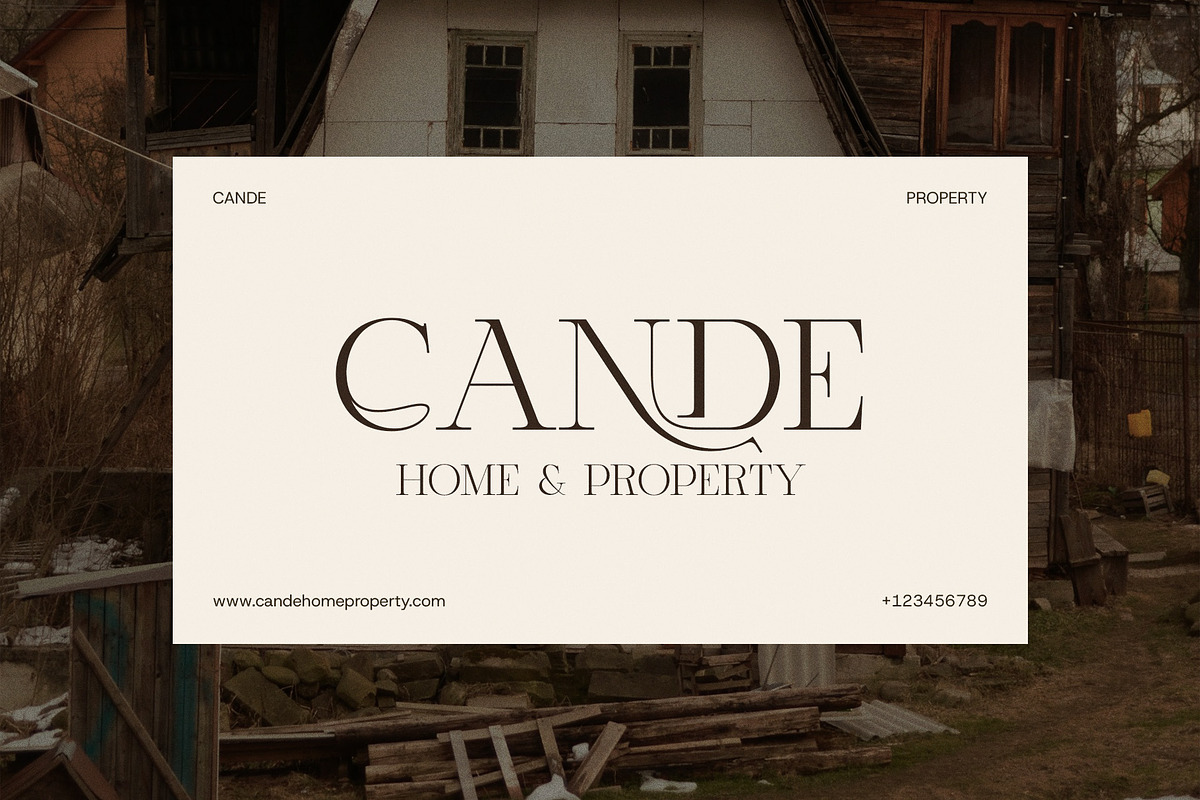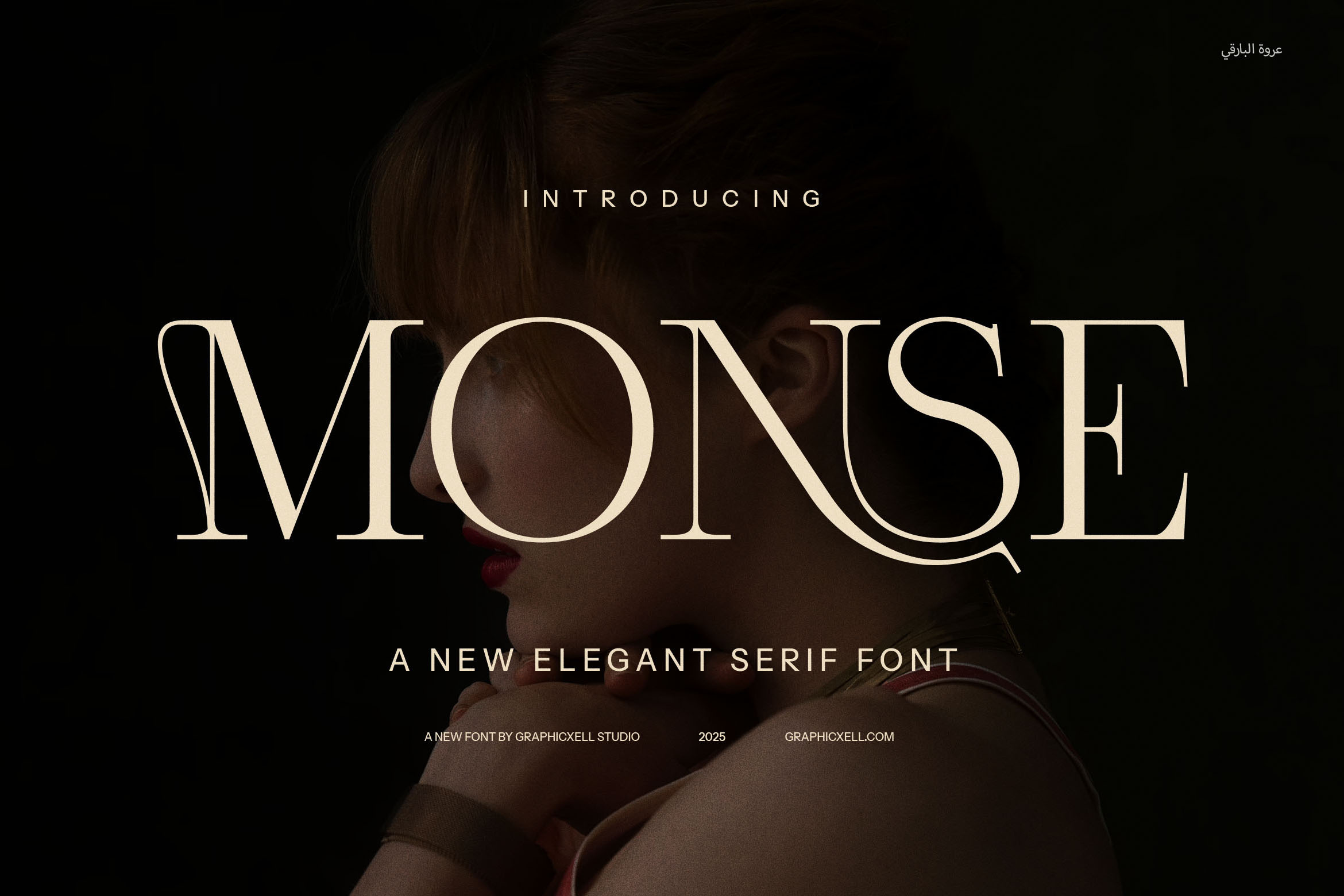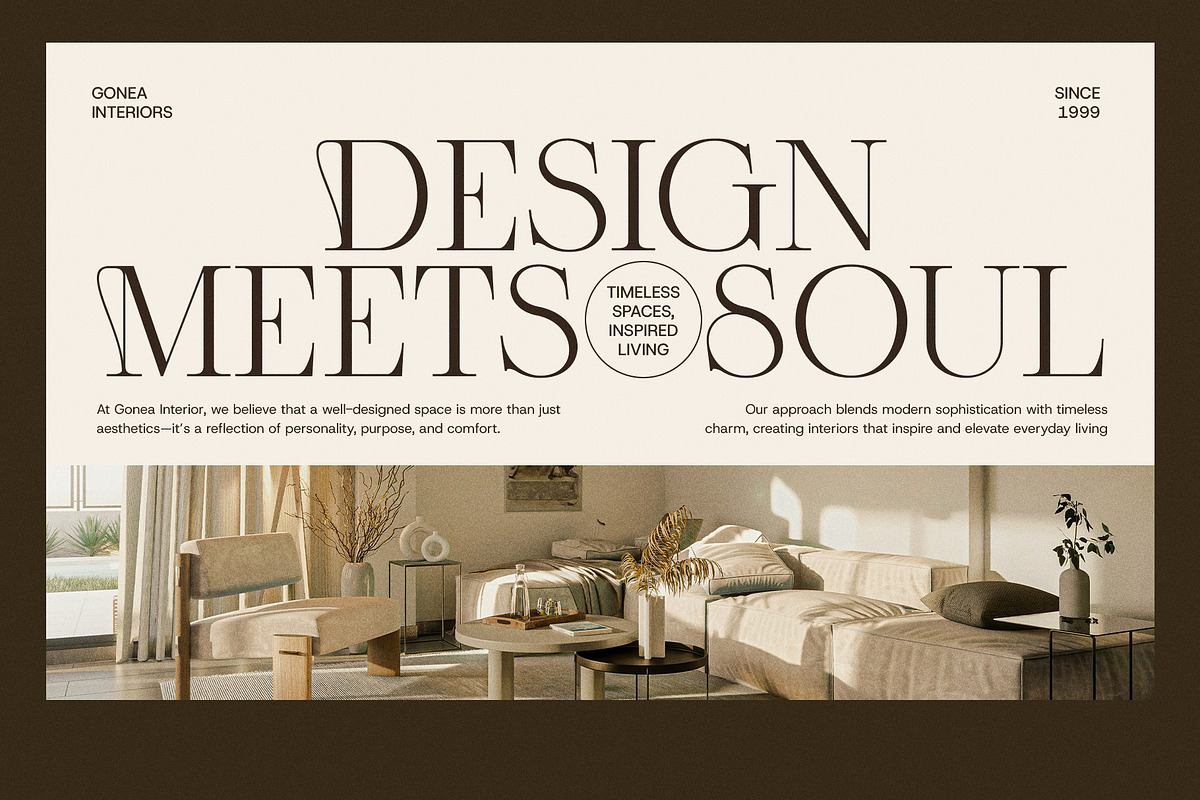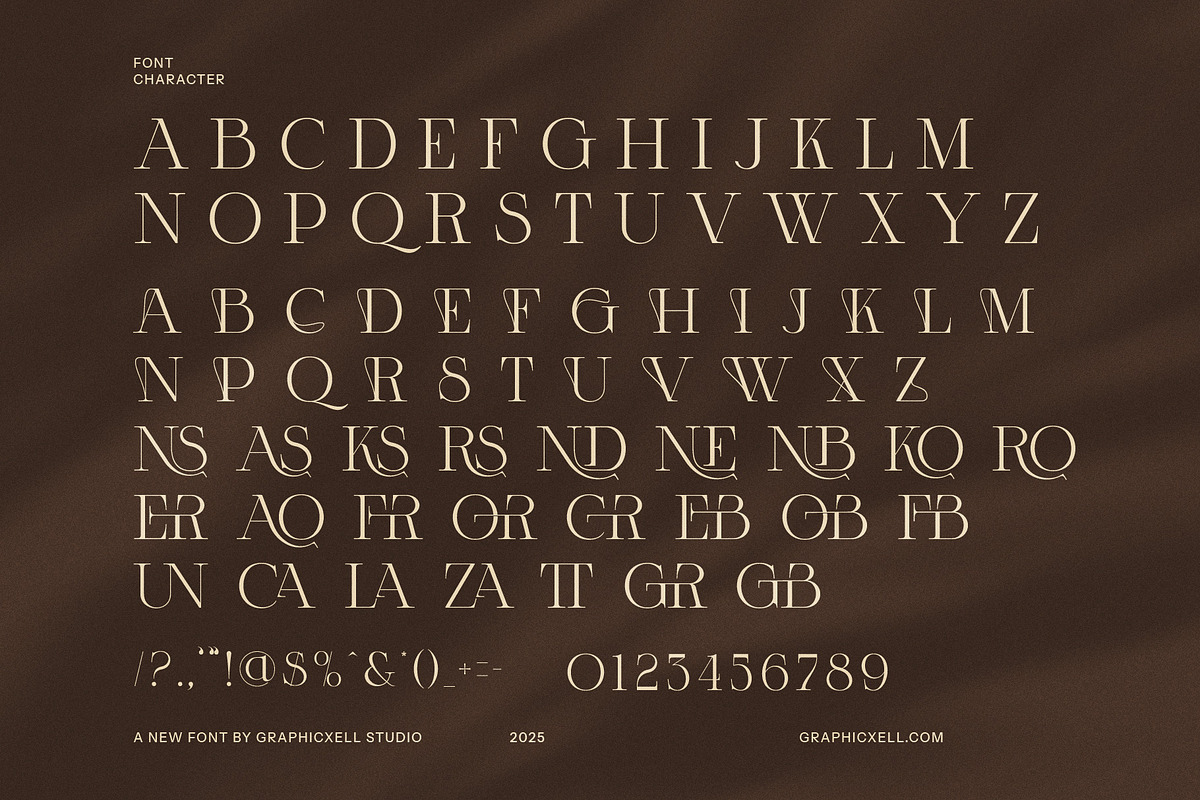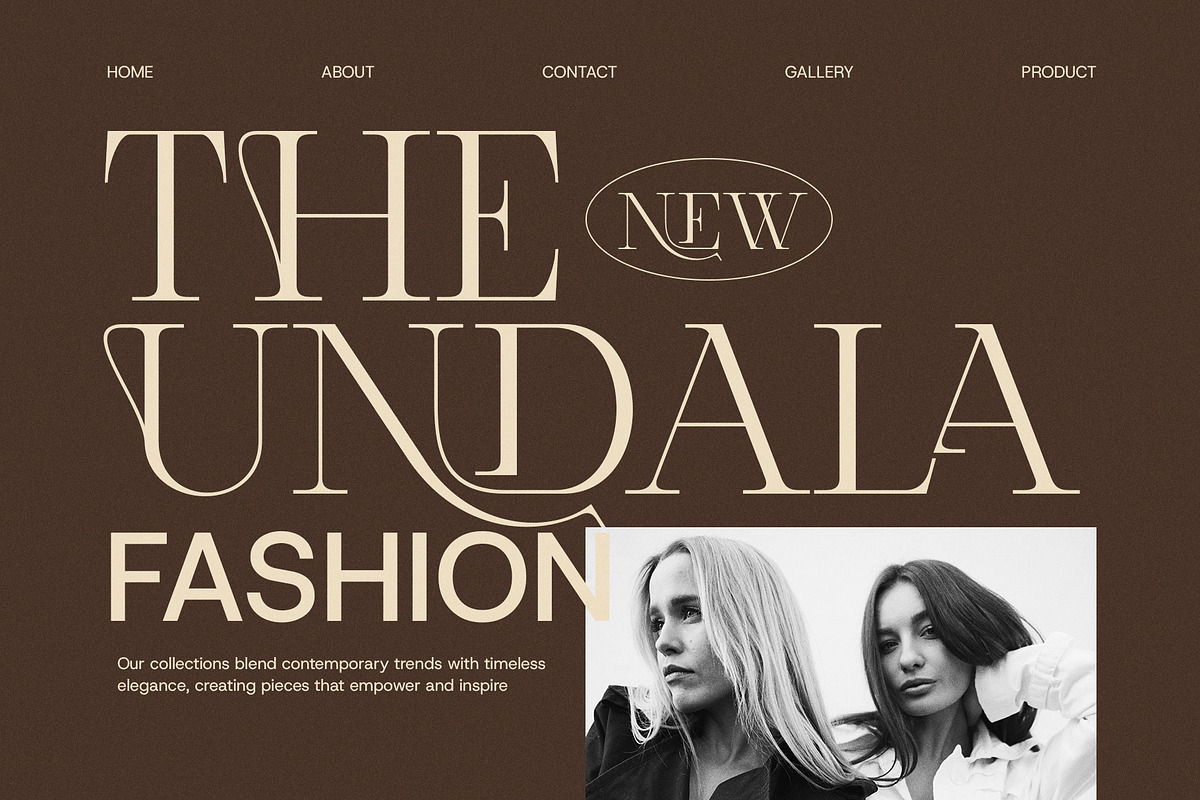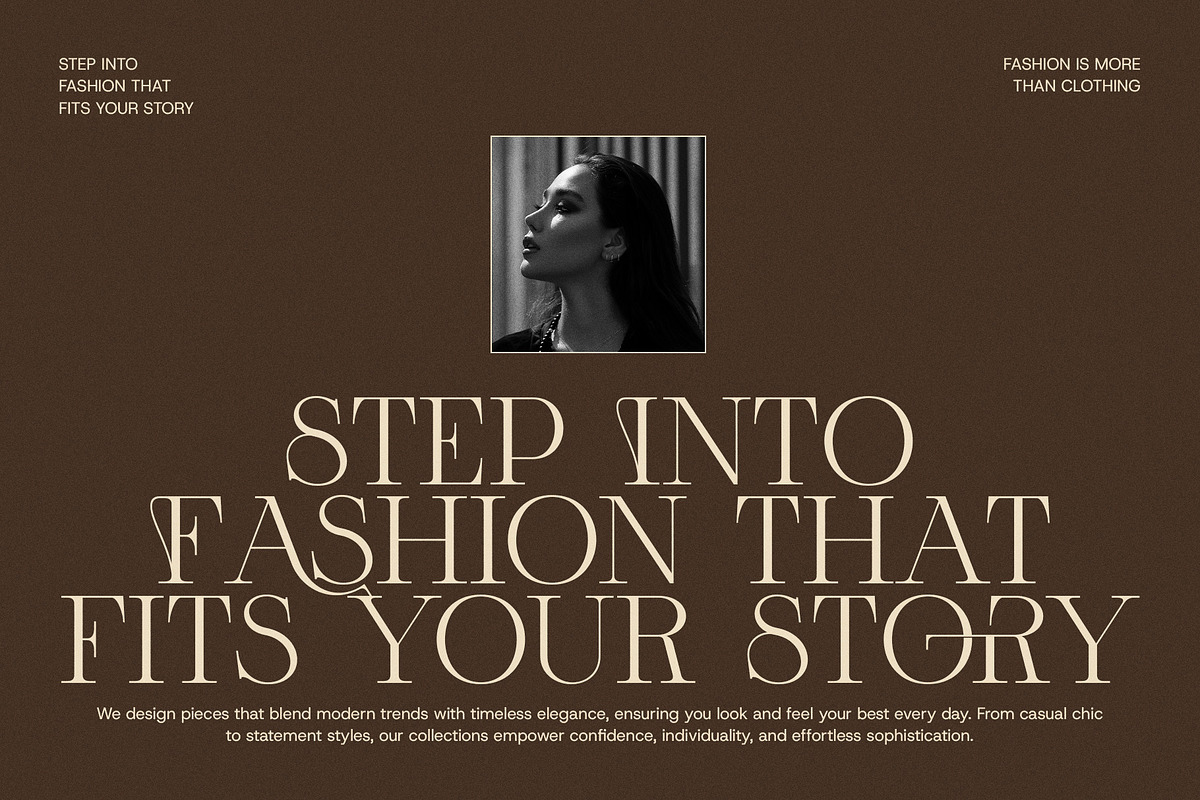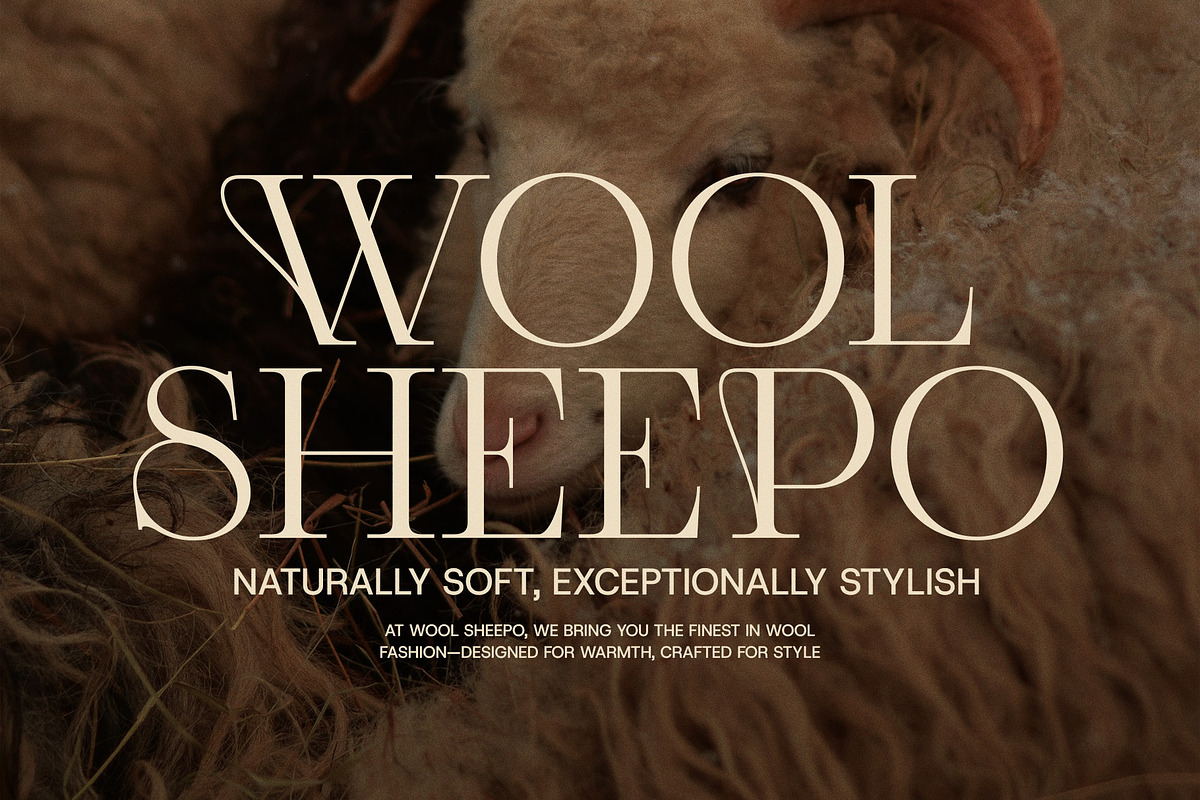
Monse Ligature Serif Font
Monse Ligature Serif Font is a sophisticated and modern typeface designed to bring a refined touch to your creative projects. Its elegant serifs, paired with stunning and unique ligatures, make Monse a standout choice for anyone looking to add a sense of luxury and contemporary style to their typography. Perfect for high-end branding, premium websites, and polished product designs, this font exudes both professionalism and artistry.
The distinctive ligatures and alternate shapes in Monse give it a unique charm, ensuring your designs stand out with personality and elegance. These thoughtful details provide endless creative possibilities, whether you're crafting an iconic logo, designing a sleek magazine layout, or building an upscale brand identity. From boutique businesses to food packaging, Monse adds an air of sophistication to any project it graces.
This versatile font is ideal for both print and digital applications, ensuring it performs flawlessly across various media. Monse’s refined structure and modern flair make it suitable for headers, body text, advertisements, and promotional materials. It strikes the perfect balance between readability and aesthetic appeal, making it the perfect choice for a wide range of design purposes.
With Monse Ligature Serif Font, your projects will have a timeless, yet forward-thinking quality. Perfect for elegant branding, websites, and advertising, Monse helps your designs make a bold, lasting statement. Elevate your typography and create with confidence using this beautifully crafted typeface.